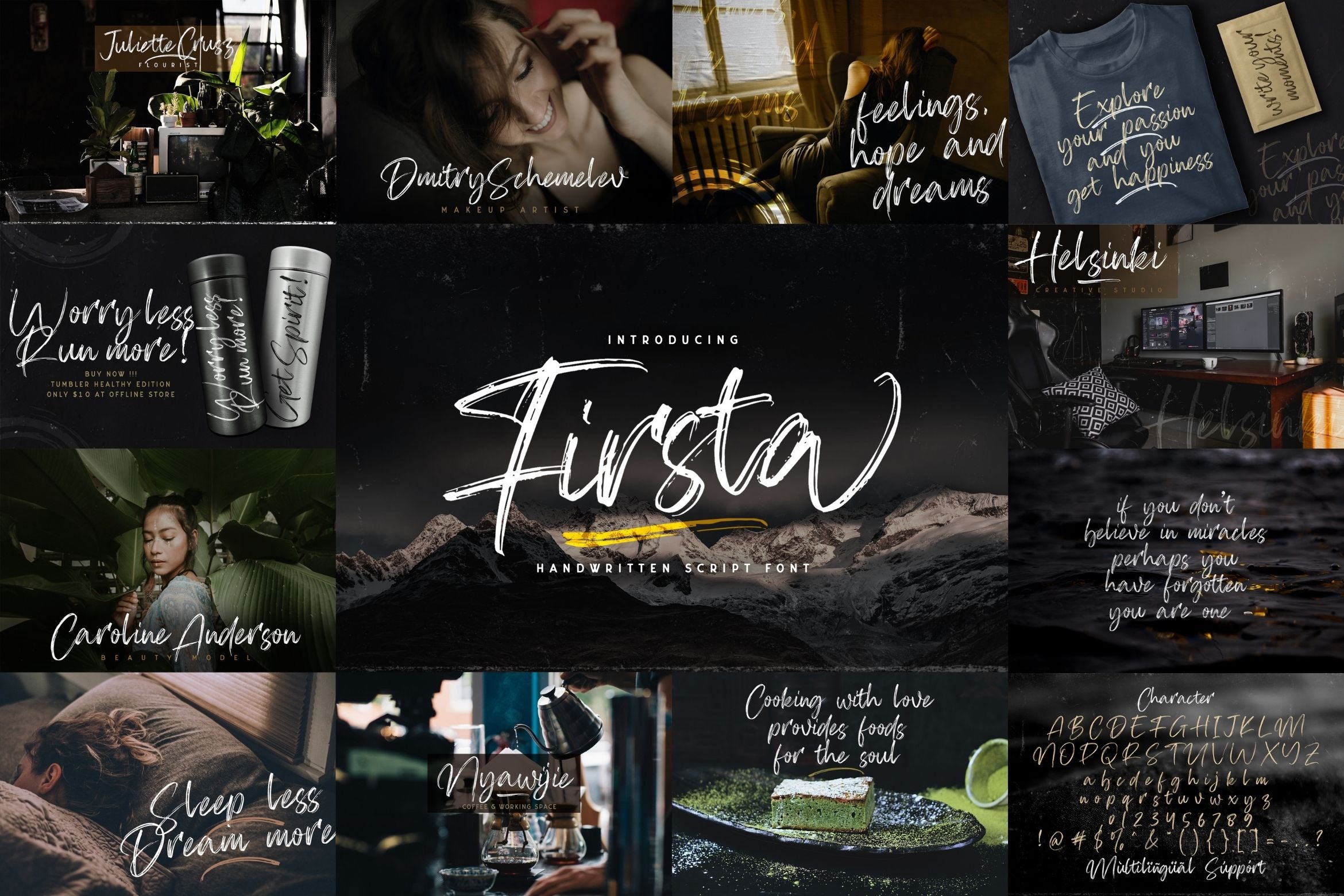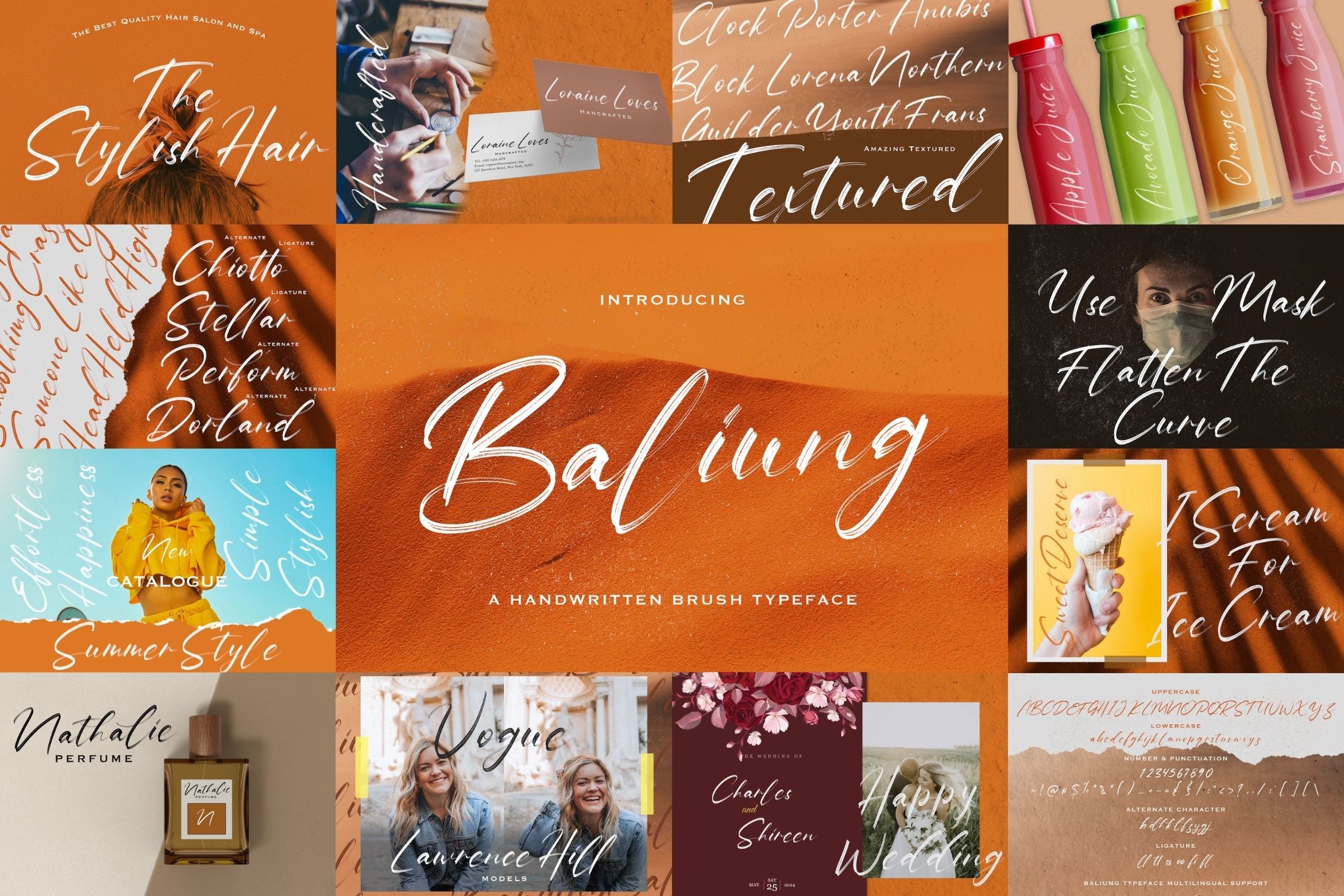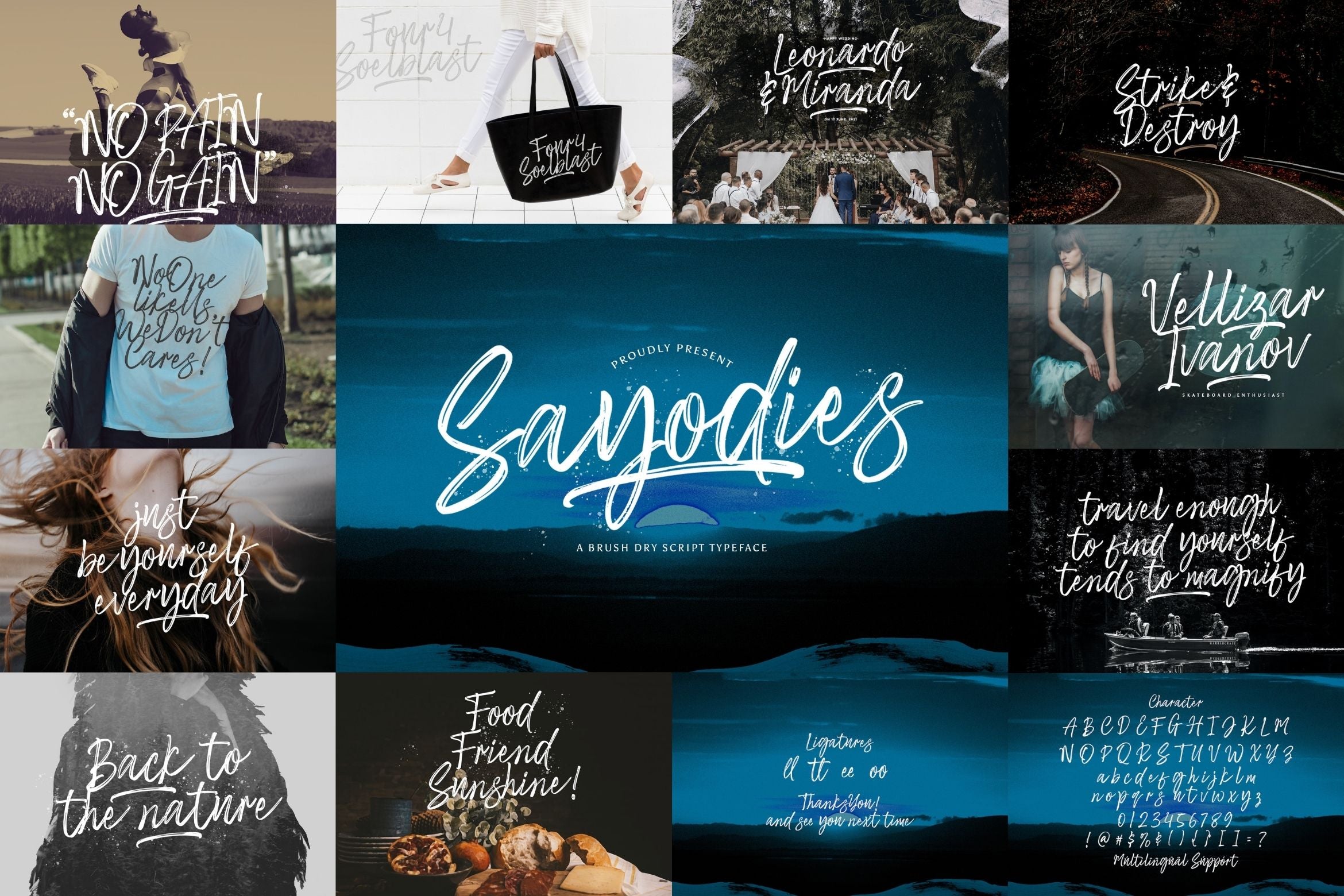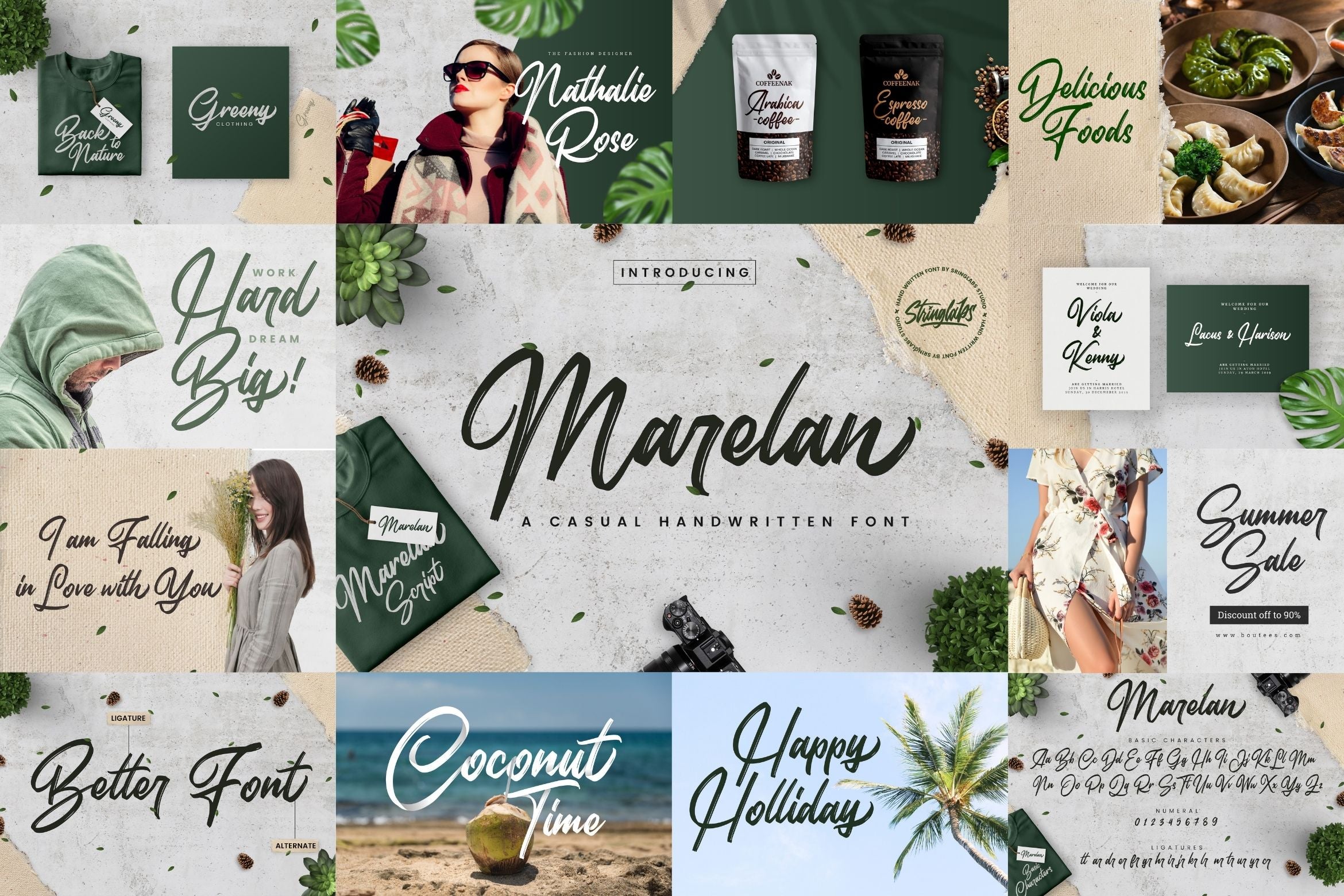
About Brush Textured Font Bundle Vol. 5
Introducing Brush Textured Font Bundle Vol. 5 This font bundle contains 6 high quality textured handbrush fonts with authentic and unique styles. This Brush Font Bundle is a cool, brushed display font. This original and bold look will appeal to a wide range of crafty ideas, from letterheads and titles, to stationery. This Font Bundle is a lovely and brushed script font that exudes elegance and class. This font was particularly crafted for those who need a beautiful and refreshing look to their designs. Get inspired by its unique and beautiful style and add it to your favorite designs! FONTS INCLUDED : 1. Sayodies 2. Janyss Brush 3. Firsta 4. Baliung 5. Russeline 6. Marelan Fonts available in format : OTF, TTF, WOFF, WOFF2